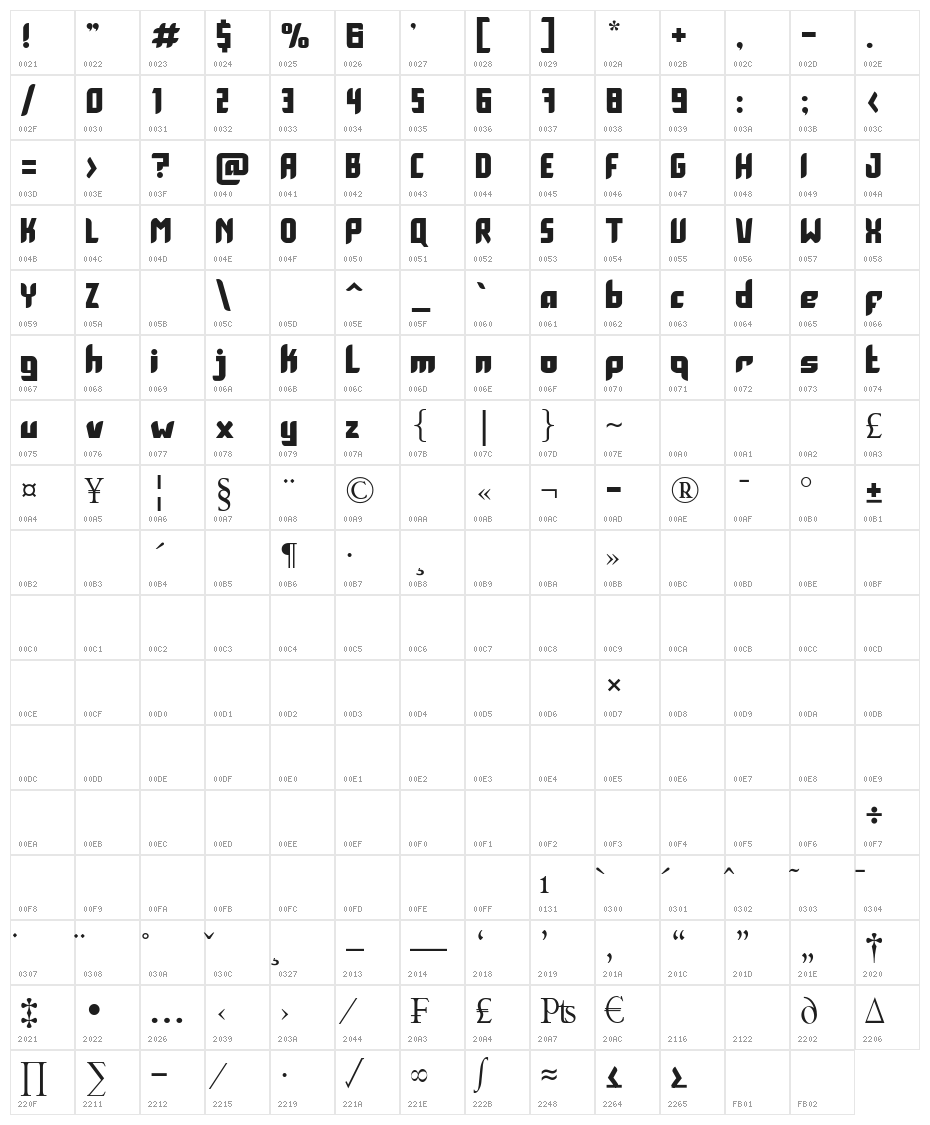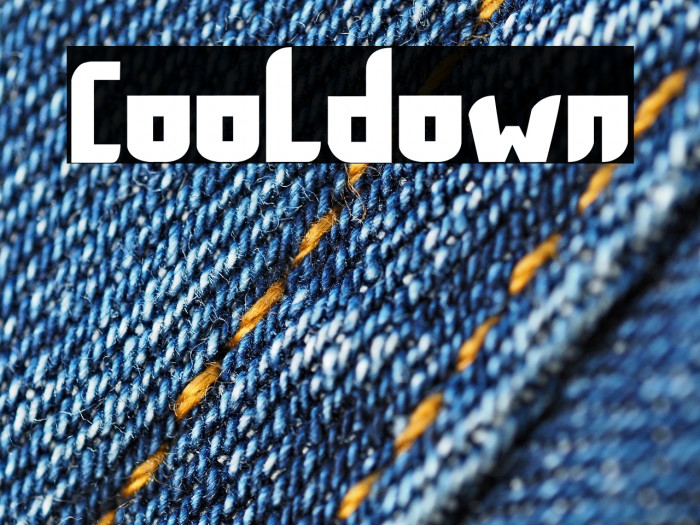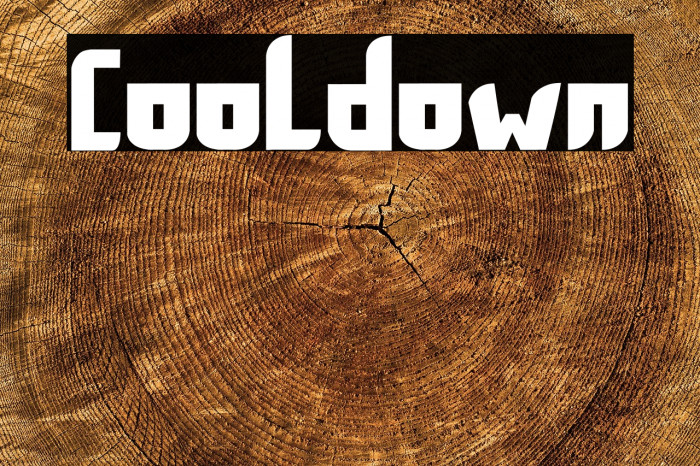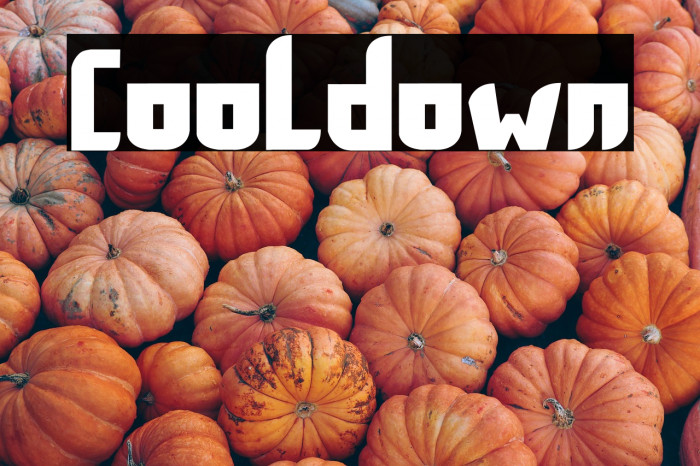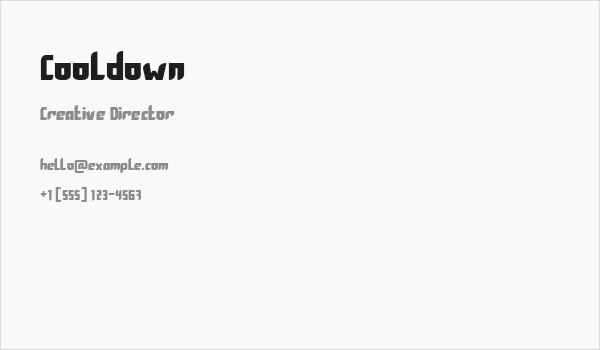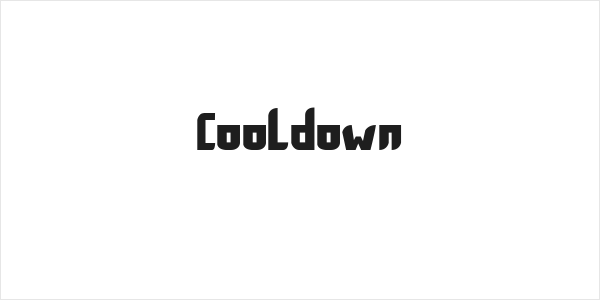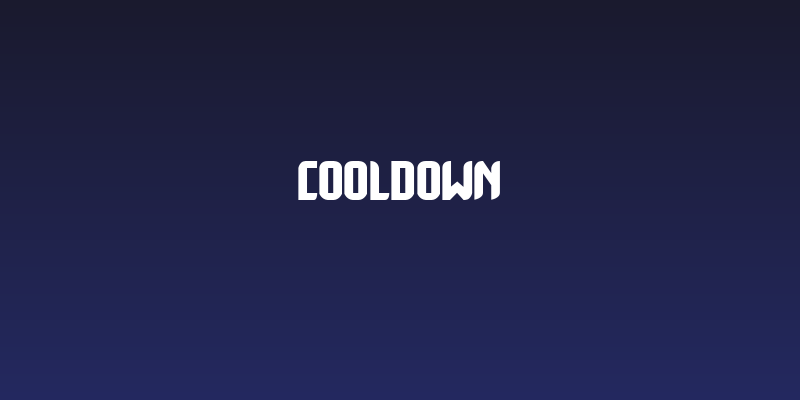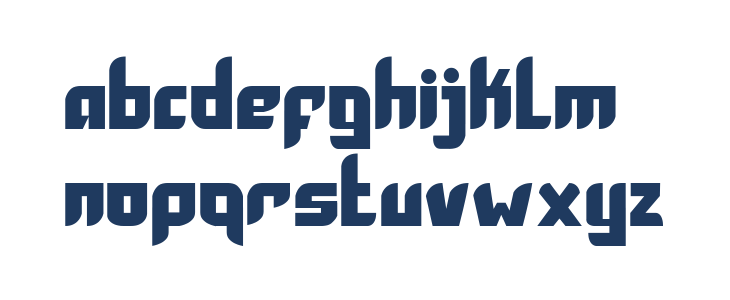
Cooldown Font
Cooldown Description
This font features a bold and geometric design with a strong presence. Its characters are constructed with sharp angles and straight edges, giving it a futuristic and industrial feel. The uppercase letters are particularly striking, with a uniform height and width that create a cohesive look. The lowercase letters maintain the same angular style, ensuring consistency throughout the typeface. Numbers and special characters are designed to match the boldness and geometric nature of the letters, making this font suitable for impactful and attention-grabbing designs.